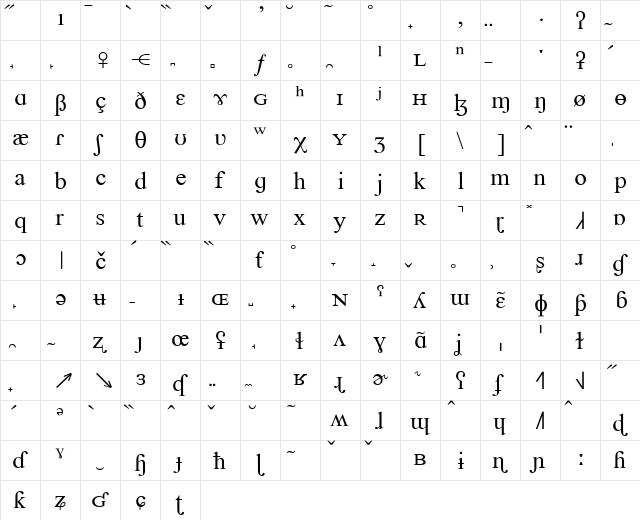
Van Dale Extended Regular
Design Context for Van Dale Extended Typeface
Van Dale Extended is a composed and adaptable typeface that performs quietly and consistently across a wide range of design contexts.